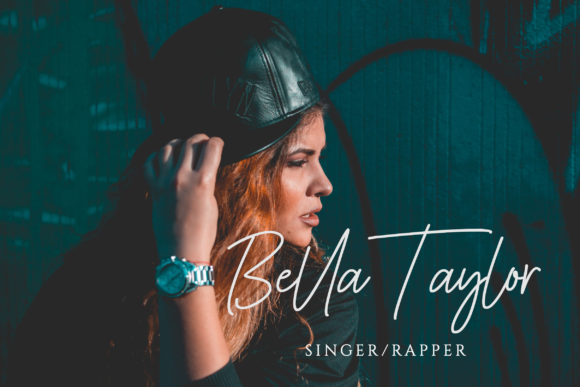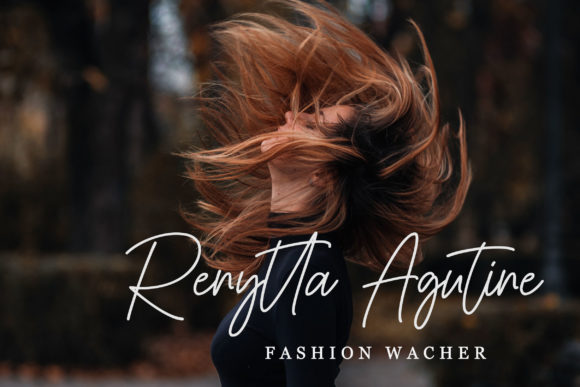
Destage Font
db-ku.com - Script & Handwritten -- Destage is a stylish and delicate script font. It has a clean, thin and smooth vibe and it will be a hit for any design that you want to add it to.